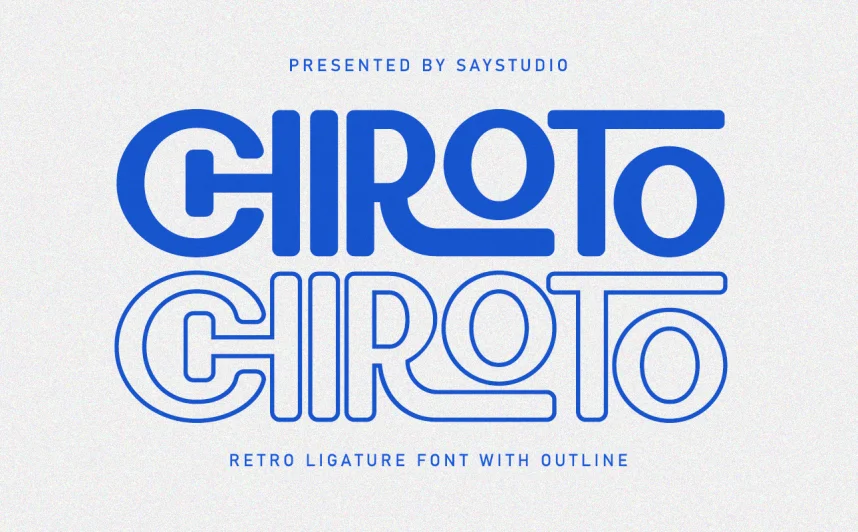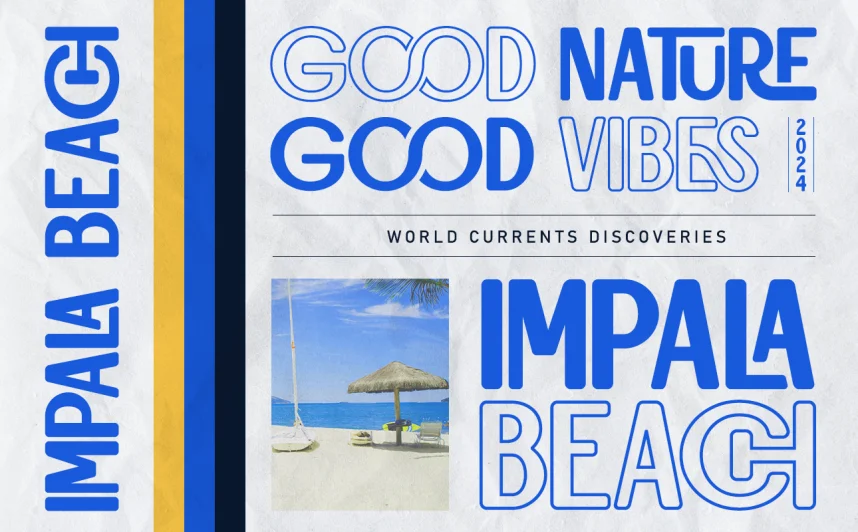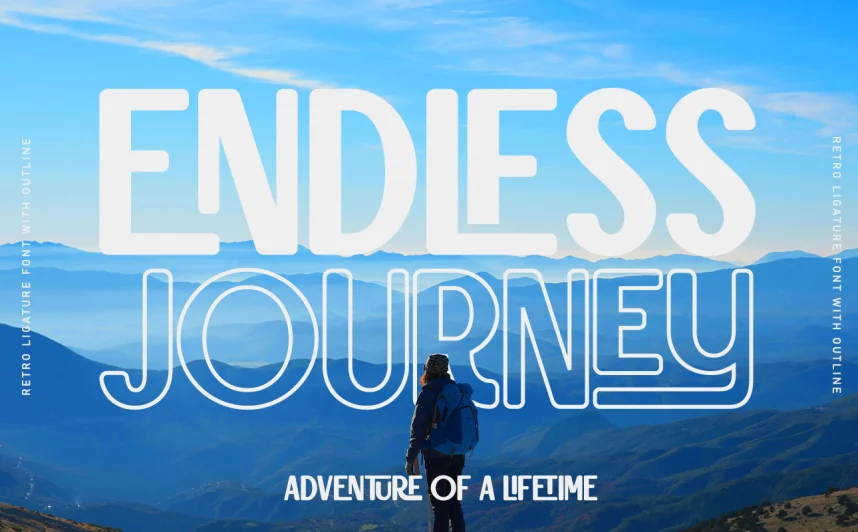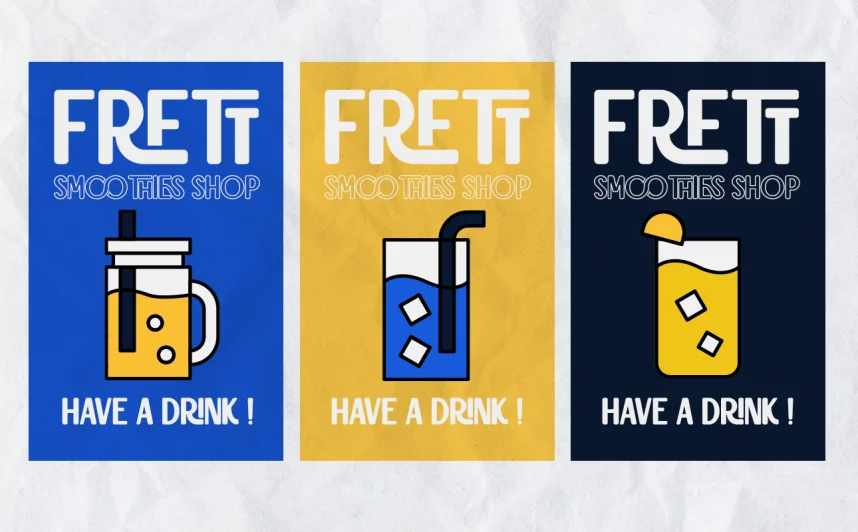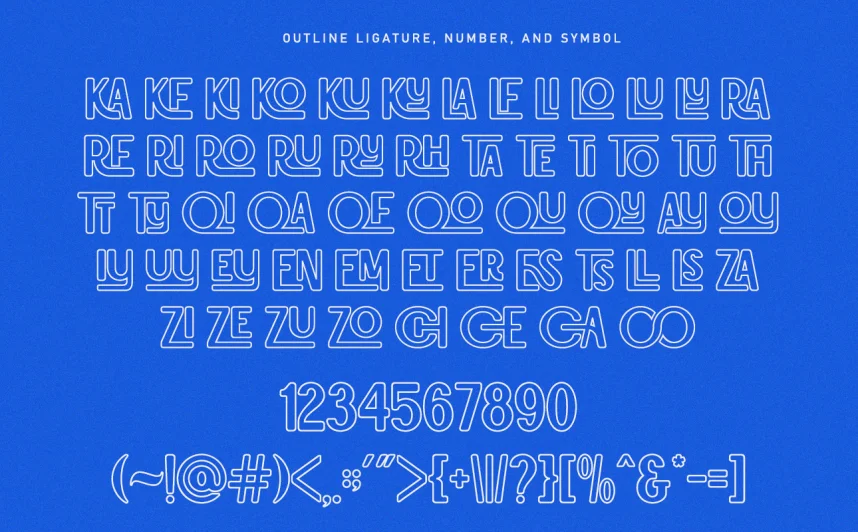
Chiroto Font is a script typeface designed to solve a common design issue: creating handwritten-style text that stays readable across digital and print layouts. Designers often need script fonts for branding, social media graphics, email signatures, and invitations without losing clarity or consistency.
Chiroto Font belongs to the script / handwritten category. Its letterforms use smooth curves, connected strokes, and moderate contrast between thick and thin lines. The characters flow naturally, which helps mimic real pen movement while avoiding overly decorative swashes. This balance improves legibility in short text like names, quotes, and headings.
The font works well for logo design, personal branding, Instagram posts, digital signatures, and wedding invitations where a relaxed, human feel is needed. It performs best at medium to large sizes and should not be used for long body text. For clean layouts, designers often pair it with a sans-serif font such as Montserrat or Open Sans for supporting text.